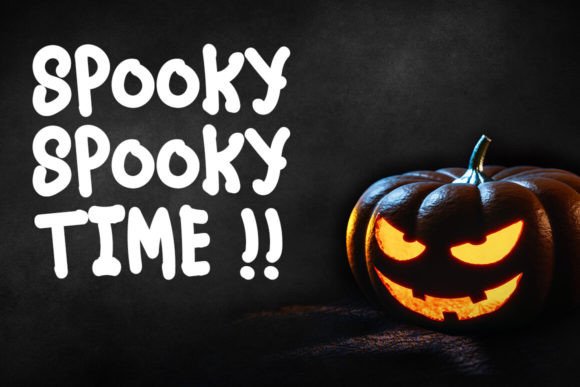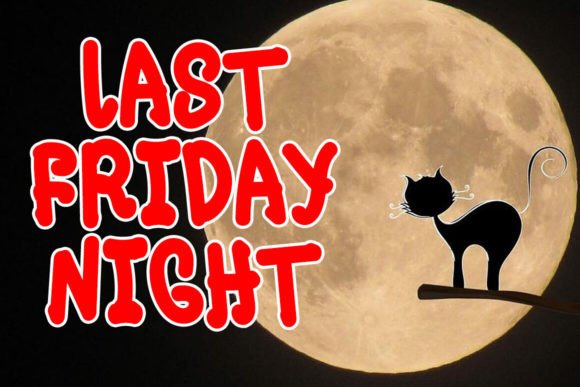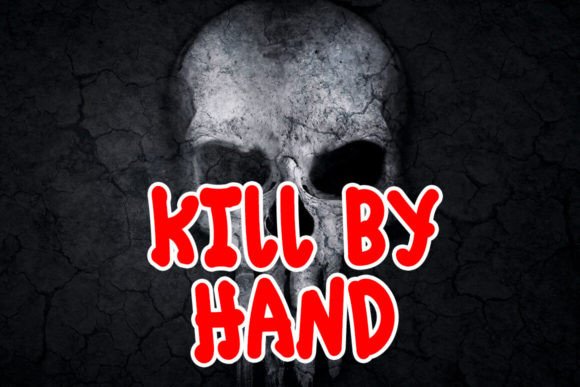
Unleash the Spirit of Halloween with Handmade Halloween Font
As the spookiest time of the year approaches, designers and crafters are on the lookout for the perfect font to capture the essence of Halloween. Look no further than the Handmade Halloween Font, a versatile and functional typeface that’s sure to elevate your designs to new heights. In this article, we’ll dive into the features and benefits of this incredible font, and explore how you can use it to create a variety of design elements that will leave a lasting impression.
The Versatility of Handmade Halloween Font
Handmade Halloween is incredibly functional and versatile. With its multiple weights and styles, you can easily create a variety of design elements, from headlines and body text to logos and branding materials. Whether you’re designing invitations, party decorations, or social media graphics, this font has got you covered. The range of weights and styles allows you to experiment with different looks and feels, ensuring that your designs are always fresh and engaging.
Crafting a Spooky Atmosphere with Handmade Halloween
Halloween is all about creating a spooky and atmospheric vibe, and the Handmade Halloween Font is perfectly suited to this task. The font’s handmade aesthetic gives it a unique, organic feel that’s reminiscent of old-fashioned Halloween decorations and signs. With its irregularities and quirks, this font adds a touch of whimsy and personality to your designs, making them stand out from the crowd.
Design Possibilities with Handmade Halloween
So, what can you create with the Handmade Halloween Font? The possibilities are endless! Here are a few ideas to get you started:
- Halloween Invitations: Create spooky and inviting invitations for your Halloween party or event. Use the font to add a touch of personality to your designs, and make sure your guests know they’re in for a treat.
- Party Decorations: Use the font to create eye-catching party decorations, such as banners, signs, and garlands. You can also use it to create custom Halloween-themed wrapping paper or gift tags.
- Social Media Graphics: Create engaging social media graphics that will grab the attention of your followers. Use the font to add a touch of Halloween spirit to your posts, and make sure your content stands out from the crowd.
- Logos and Branding: Use the Handmade Halloween Font to create custom logos and branding materials for your business or event. The font’s unique aesthetic will help you stand out from the competition, and give your brand a memorable personality.
Tips and Tricks for Using Handmade Halloween
To get the most out of the Handmade Halloween Font, here are a few tips and tricks to keep in mind:
- Experiment with different weights and styles: Don’t be afraid to try out different weights and styles to find the perfect look for your design.
- Mix and match with other fonts: Combine the Handmade Halloween Font with other fonts to create a unique and eye-catching look.
- Use it for headlines and body text: The font’s versatility makes it perfect for use in both headlines and body text.
The Handmade Halloween Font is a versatile and functional typeface that’s perfect for designers and crafters looking to capture the spirit of Halloween. With its multiple weights and styles, you can create a variety of design elements that will leave a lasting impression. Whether you’re designing invitations, party decorations, or social media graphics, this font is sure to elevate your designs to new heights. So why wait? Get creative with the Handmade Halloween Font, and unleash the spirit of Halloween in your designs!